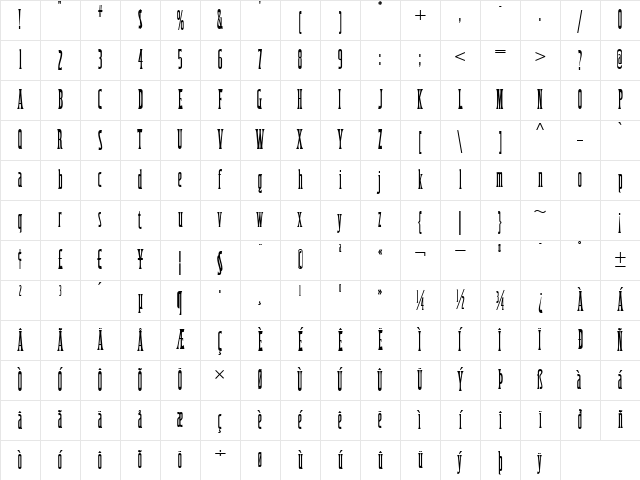
LagunaMadreWBW Regular
Foundry: Nick's Fonts
Designer: Nick Curtis
Design Context for LagunaMadreWBW
LagunaMadreWBW is a composed and adaptable typeface that performs quietly and consistently across a wide range of design contexts.
Who designed the LagunaMadreWBW Regular font?